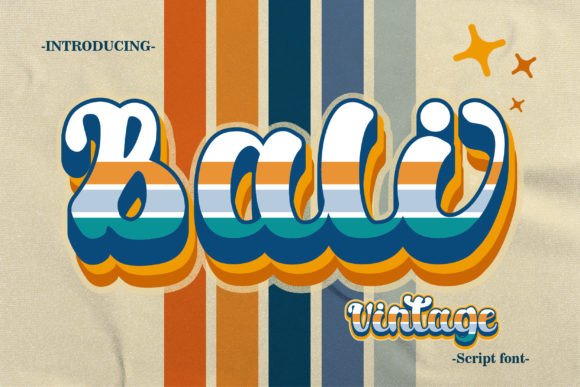
Bali Vintage Font
Prepare yourself to be mesmerized by Bali Vintage Font, a striking display font that captures the essence of vintage charm with a bold and captivating style. Step into a world of retro elegance and prepare to be captivated by the timeless beauty it brings to your designs.
Bali Vintage Font is not just a font; it's an experience. Its carefully crafted glyphs and swashes, accessible through PUA encoding, provide endless possibilities for expressing your creativity. Unleash your imagination and let Bali Vintage Font guide you through a journey of vintage nostalgia.
Picture this: a coffee shop with an inviting ambiance, adorned with signage and menus featuring Bali Vintage Font. The letters dance across the surface, exuding an air of warmth and familiarity. Customers are drawn in by the font's retro charm, feeling a sense of connection to a simpler time.
Bali Vintage Font is the perfect choice for branding, invitations, stationery, wedding designs, and social media posts. Its versatility extends to logos, creating a lasting impression that sets your brand apart. Let Bali Vintage Font be your canvas for expressing your unique style and captivating your audience.
Don't settle for ordinary fonts. Embrace the extraordinary with Bali Vintage Font. Its vintage flair adds a touch of sophistication and nostalgia to any project, evoking emotions and creating a lasting impact. Whether you're designing for print or digital media, Bali Vintage Font is the key to unlocking your creative potential.
Join the ranks of designers who have discovered the allure of Bali Vintage Font. Let its vintage charm transport you to a bygone era, where timeless elegance meets modern creativity. Experience the difference and elevate your designs to new heights.